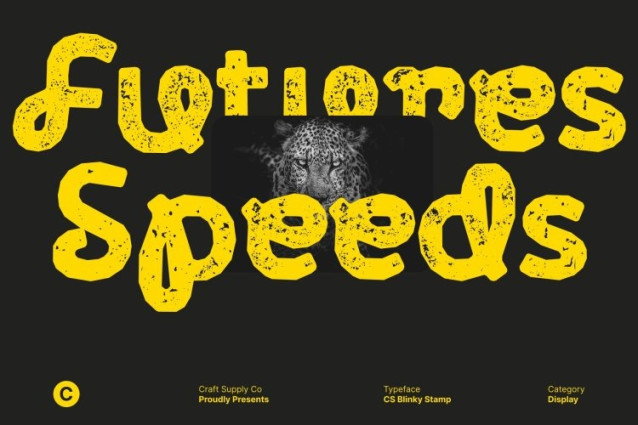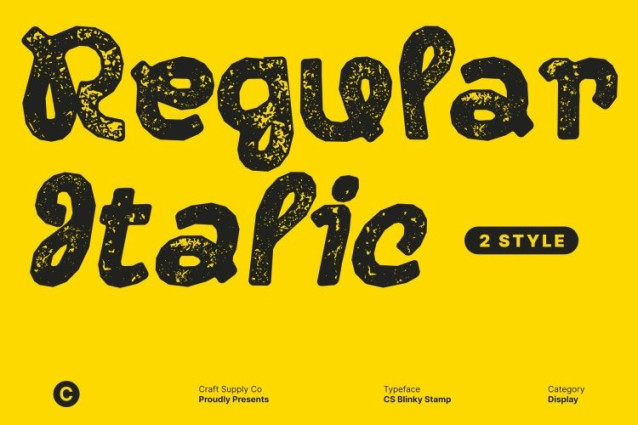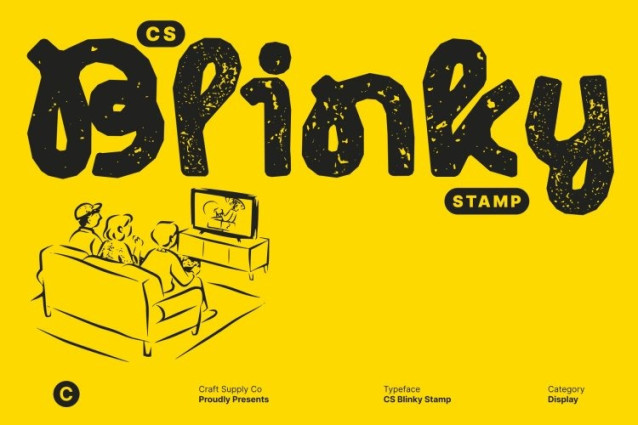
CS Blinky Stamp Font This is a modern experimental sans serif font created to celebrate creativity and originality. Its distinctive letterforms and playful attitude break away from convention, forming a bold typographic identity that feels fresh and imaginative. Enhanced with a stamp effect, the font gains textured surfaces and subtle imperfections, giving it a handcrafted, old-print character that contrasts beautifully with its modern structure.
Distinctive Shapes with Artistic Vintage Texture
Each letter carries a unique rhythm, blending clean geometric foundations with playful irregularities. The stamped texture adds depth and personality, transforming crisp forms into expressive, tactile shapes. This fusion creates a creative edge that feels both contemporary and nostalgically artistic perfect for designers who want typography to speak visually.
Ideal for Playful and Artistic Branding
This font shines in posters, logos, editorial layouts, and creative branding. Its quirky design and stamped finish bring originality and warmth to brand identities, event graphics, and social media visuals. The combination of experimental form and vintage texture ensures your message stands out with character and charm.
Versatile, Fresh, and Unapologetically Fun
Despite its experimental nature, this font remains readable and flexible across applications. The balance of playful design, modern clarity, and textured stamp detail makes a reliable choice for bold, joyful, and innovative projects perfect for expressing design freedom, creativity, and youthful imagination.